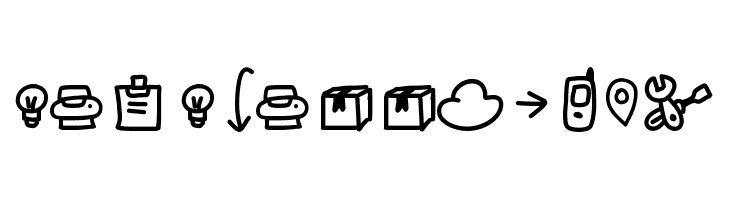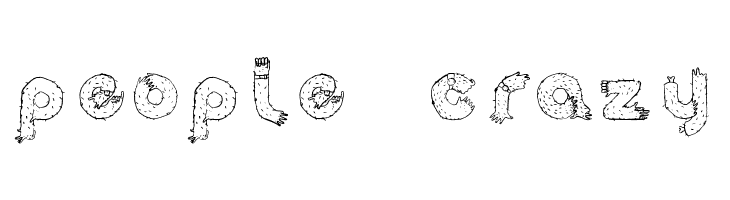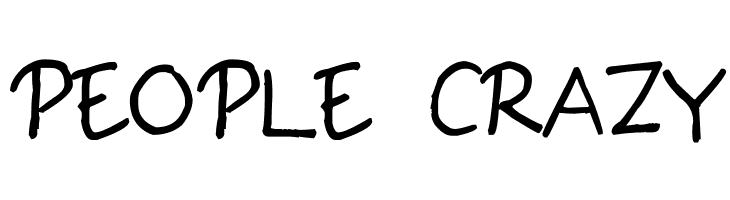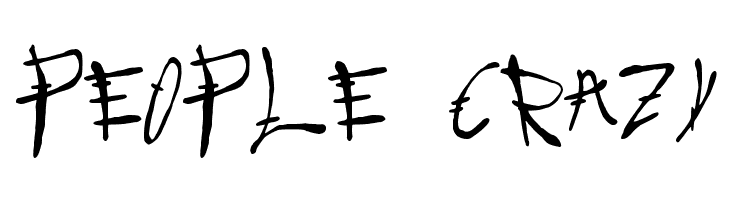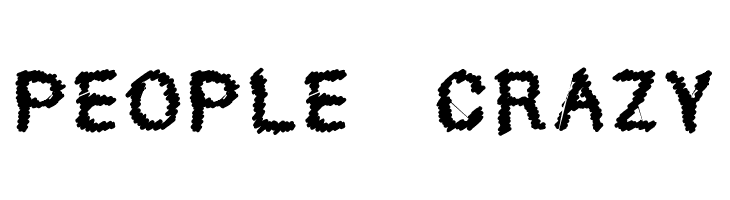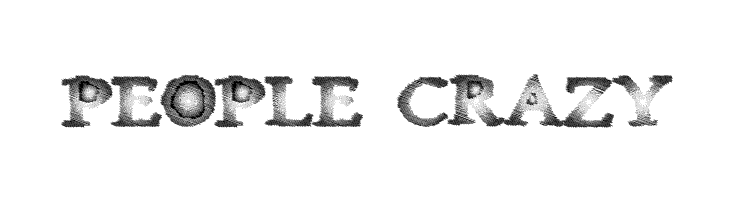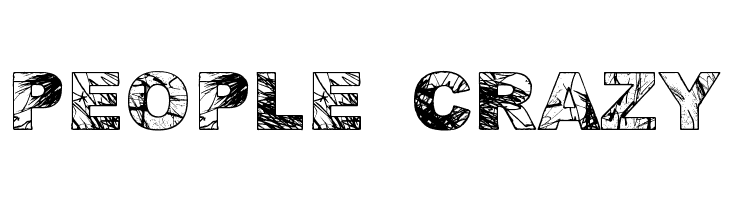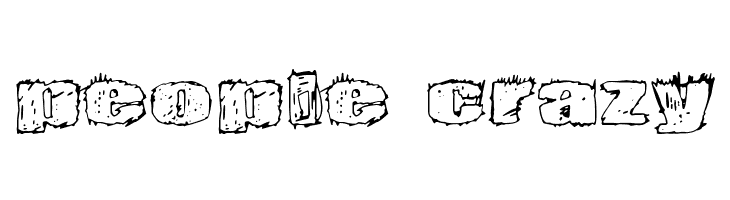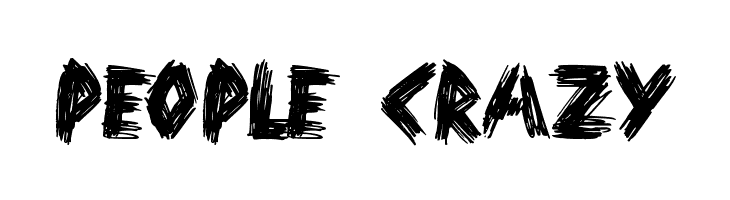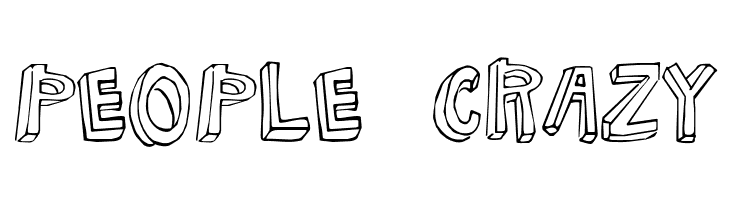
A playful, casual handwritten font with uneven strokes and a natural feel.
An expressive, hand-drawn font with dynamic and erratic strokes.
A bold, textured font with a hand-drawn, artistic style.
A bold, decorative font with a hand-drawn, textured appearance.
A bold, distressed font with a grungy, textured appearance.
A playful, 3D hand-drawn font with bold outlines and a dynamic style.
A bold, hand-drawn font with a rough, textured appearance.
A playful, hand-drawn font with uneven strokes and a whimsical feel.
A bold, hand-drawn font with an expressive and informal style.
A rugged, hand-drawn font with a distressed, artistic style.
A distressed, hand-drawn style font with textured, irregular edges.
A rugged, hand-drawn font with uneven strokes and a distressed texture.
A rugged, hand-drawn font with an edgy, chaotic style.
A playful, textured font with fuzzy, hand-drawn outlines.
A raw, hand-drawn font with an edgy and chaotic style.
A rugged, textured font with a hand-drawn, energetic style.
A bold, textured font with a hand-drawn, artistic style.
A playful, handwritten font with a casual and organic style.
A playful, sketchy font with a hand-drawn, textured appearance.
A rugged, hand-drawn font with uneven strokes and a distressed appearance.
A raw, edgy, hand-drawn font with a jagged, distressed style.
A bold, textured font with a hand-drawn, scribble-like appearance.
A textured, sketch-like font with playful and artistic characteristics.
A rugged, hand-drawn font with sharp, angular lines and a distressed look.
A sketch-like, hand-drawn decorative font with an artistic and textured appearance.
A bold, scratchy, hand-drawn font with a dynamic and textured appearance.